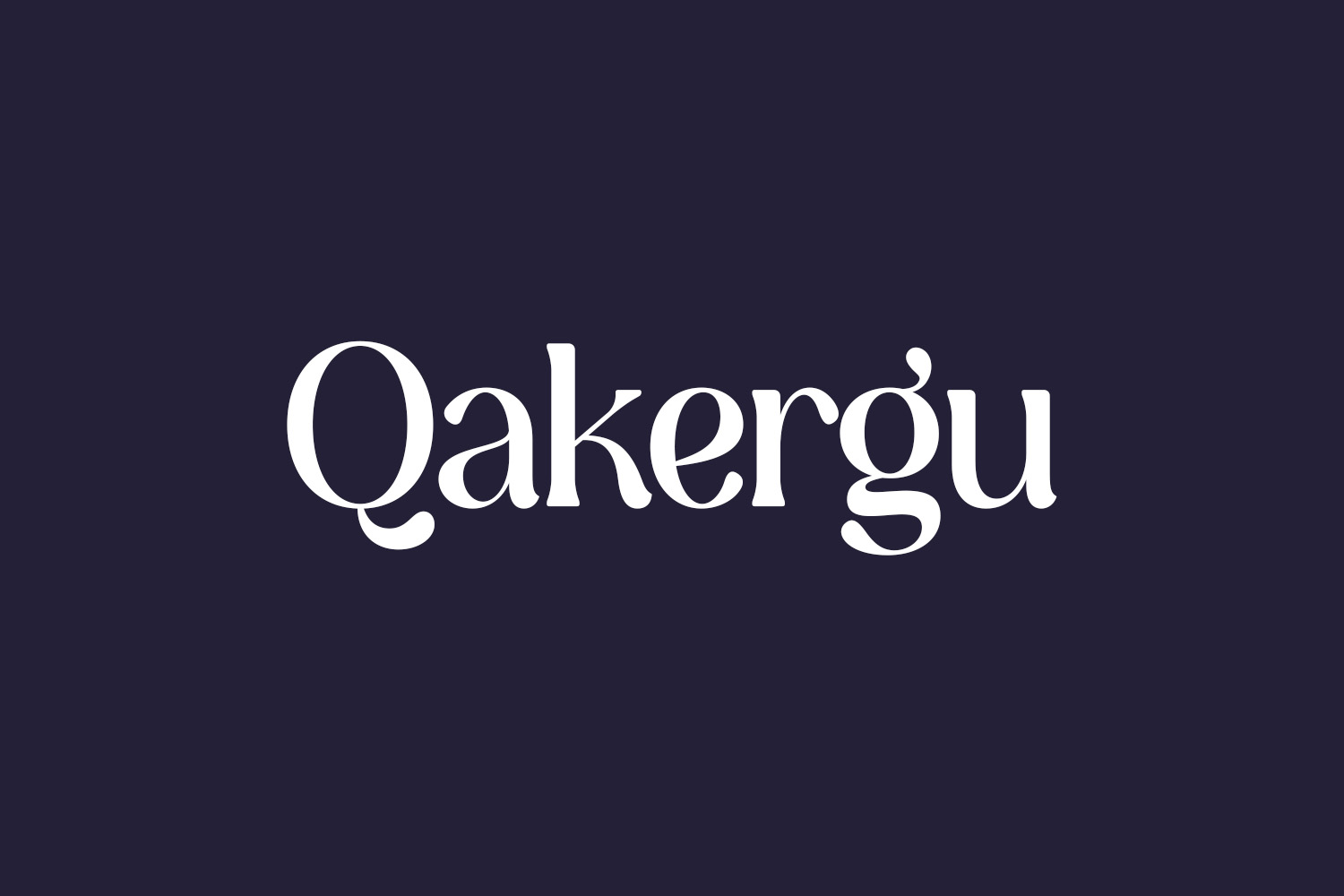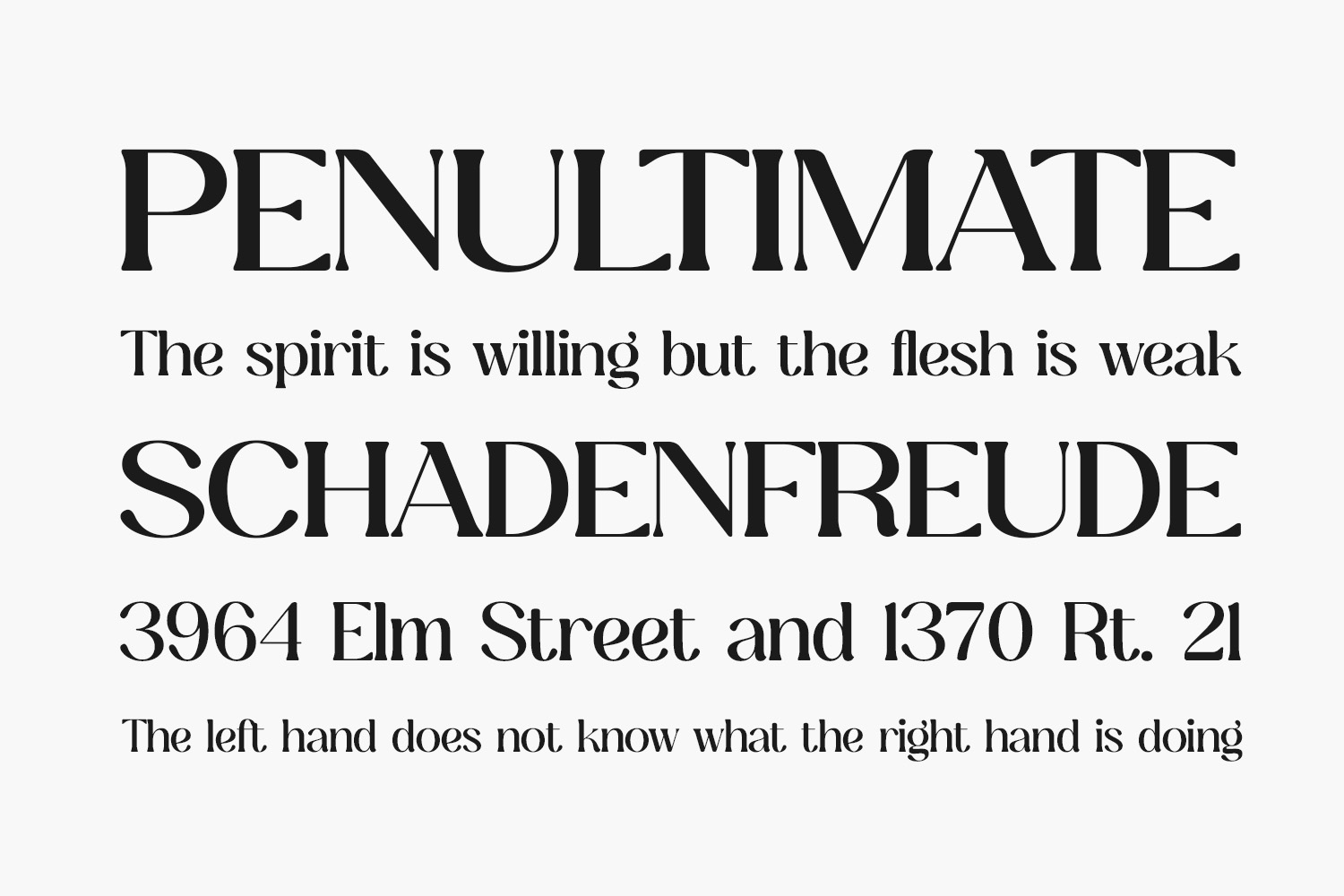
Introducing Qakergu Free Font, an elegant serif font with a sophisticated charm and a touch of contemporary style. Tailored for luxury, elegance, and feminine projects, this font is ideal for crafting modern and chic designs that exude refinement. Qakergu Free Font is free for personal use only. Please purchase the full version for commercial use.